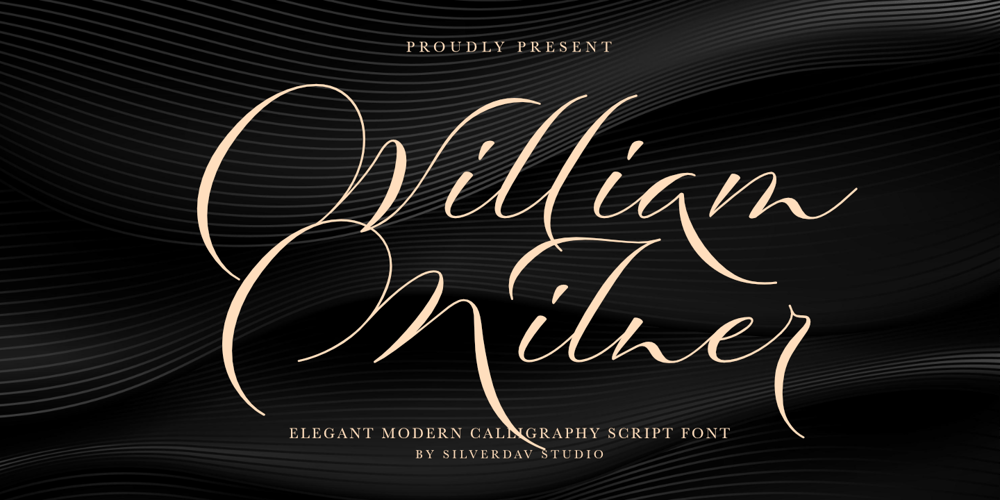
Imperial Signature Font Family was designed by David Kasidi, Andi Kaisar and published by Silverdav. Imperial Signature contains 1 styles and family package options. Introducing “William Milner” a modern Calligraphy font, created because it was inspired by a famous Calligraphy Writing Expert, we made it by adding digital touches to beautify it so that the result is a beautiful and stunning font.The William Milner font has Alternate characters that you can use to complete your design to make it more beautiful and aesthetic.This font is very suitable for branding, logotype, magazine covers, quotes, wedding invitations, and others.